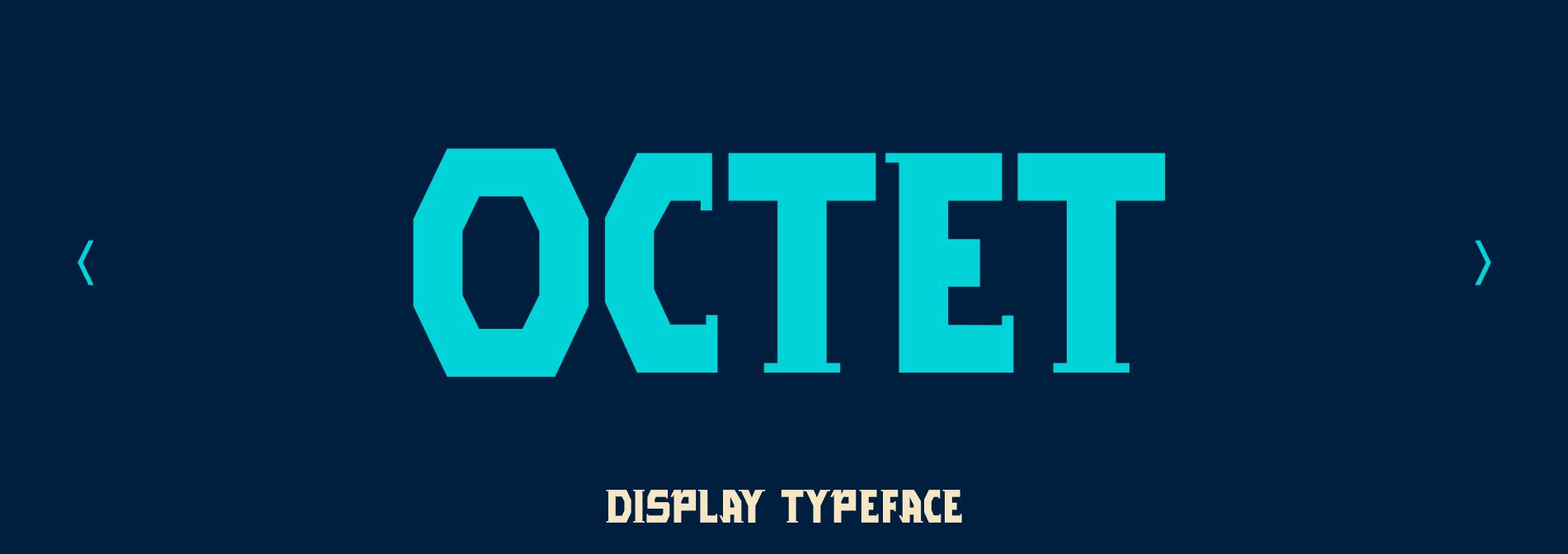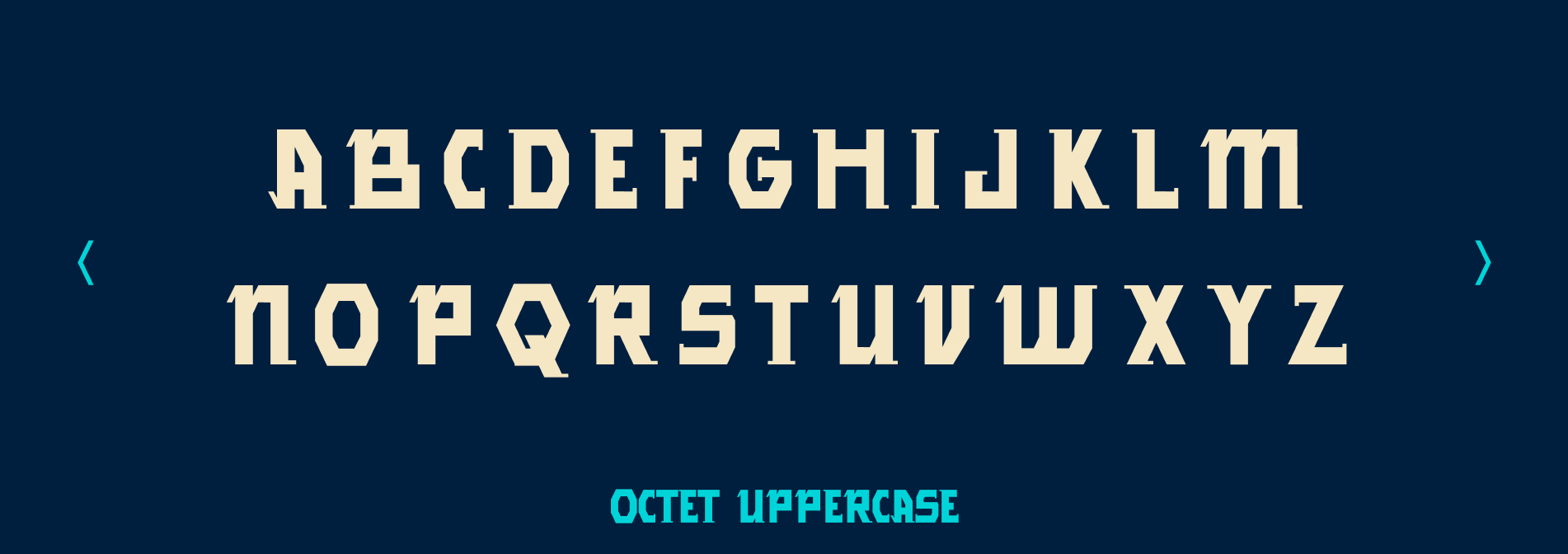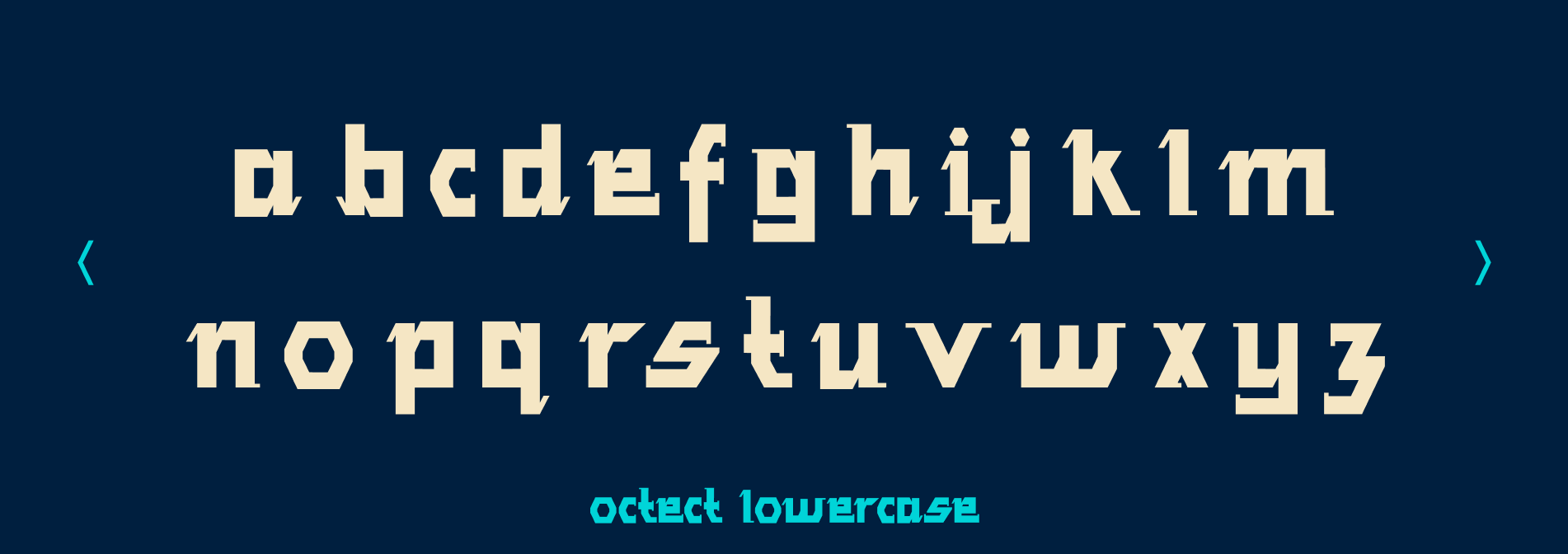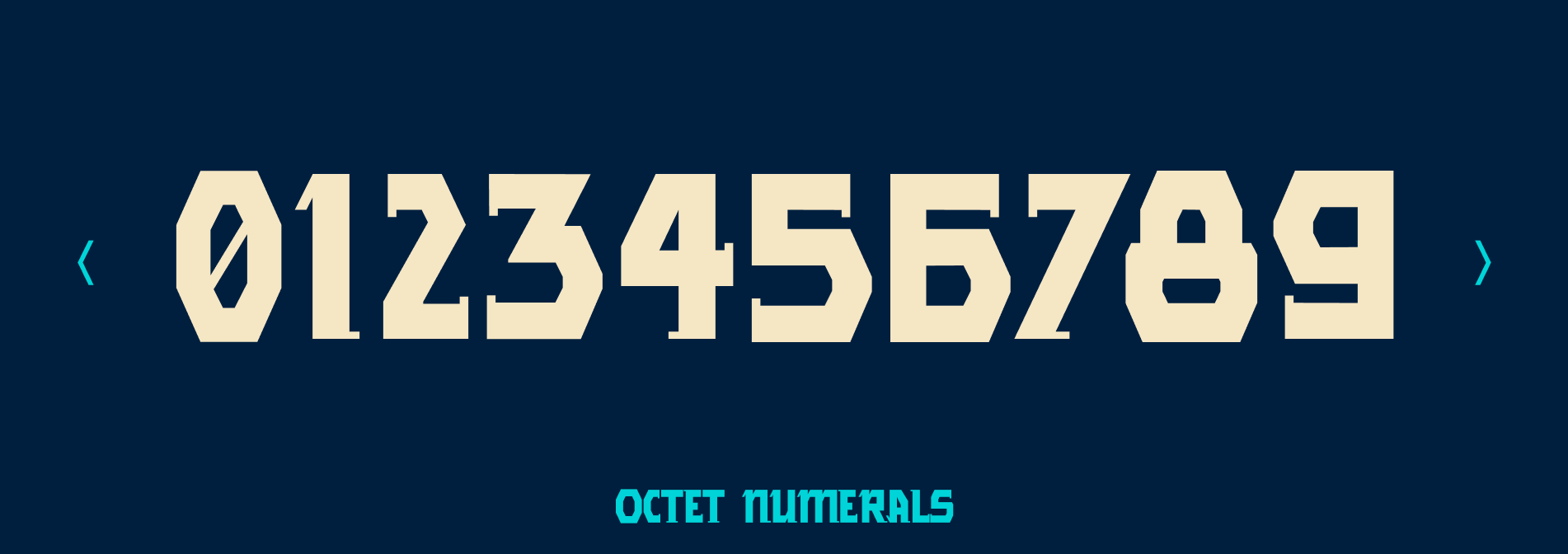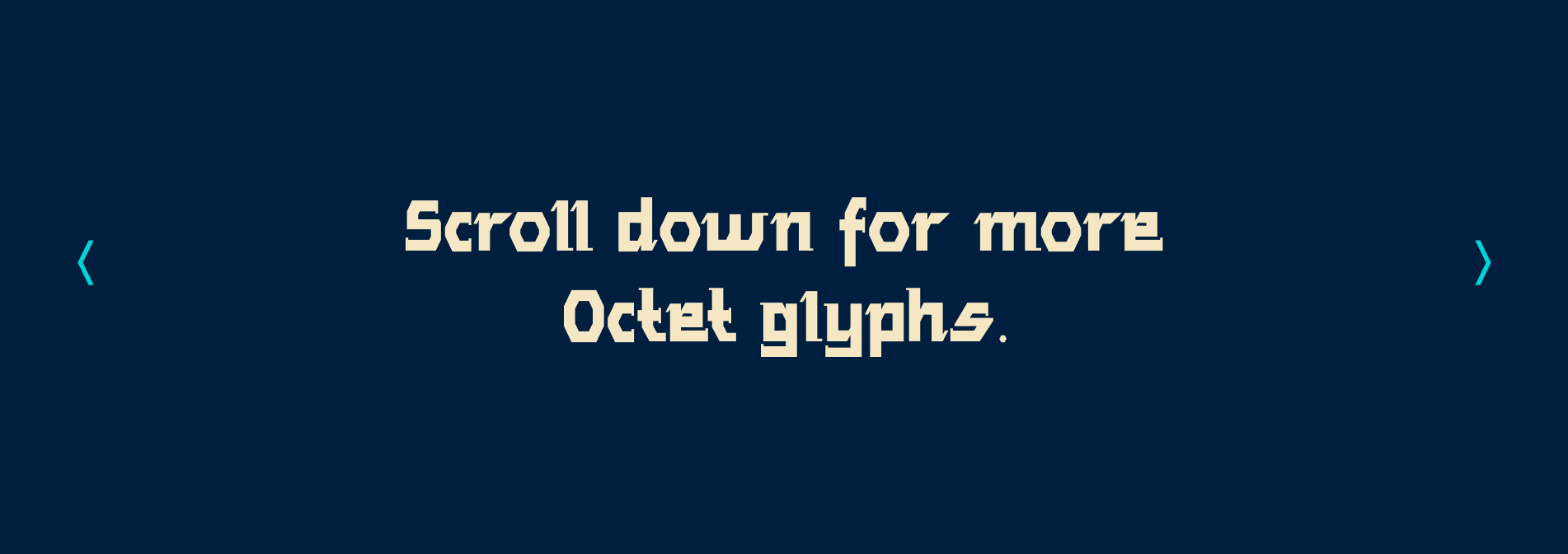
About OCTET
In science, the Octet Rule dictates that atoms reach their most stable state when their valence shells are populated by eight electrons. This atomic equilibrium finds its physical map in the Eightfold Way—a geometric arrangement that organizes the chaotic subatomic world into a symmetrical, eight-point network.
This concept, first encountered in Edward Frenkel’s Love and Math, remained dormant until it surfaced as the structural catalyst for the Octet typeface—an unannounced connection that happened while I was cooking scrambled eggs, half-asleep due to a lack of caffeine, on a weekend morning.
The characters are built upon a rigid Octagonal Chassis, which shifts into the hexagonal honeycomb of the Eightfold Way in the letter Q. This structural duality utilizes a hybrid serif system to anchor the geometry; markers are positioned at the precise entry and exit points of each glyph—horizontal, vertical, and diagonal—captured through tight kerning and specific structural ligatures.
A grounded typeface engineered for high-impact branding, technical manifestos, and anything in between.